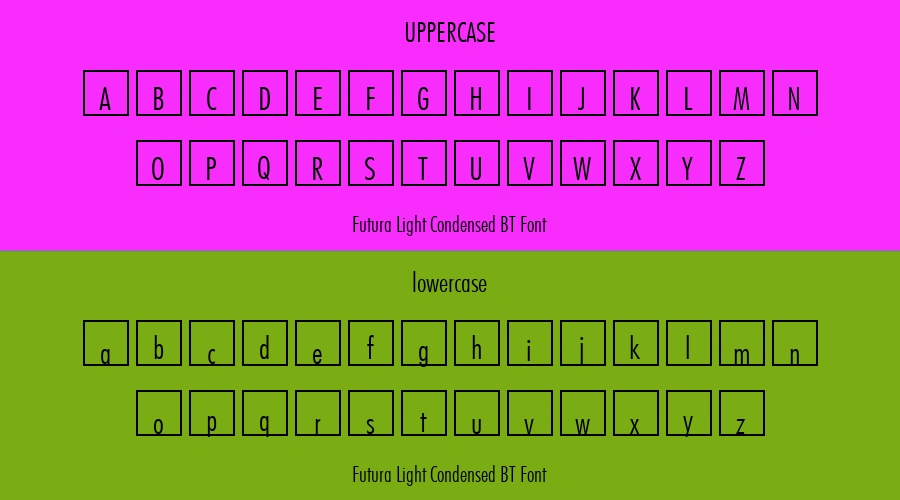
About Futura Light Condensed BT Font
Futura Light Condensed BT Font embodies typographic excellence through its masterful combination of humanist proportions and functionality. Created for product naming, this typeface delivers exceptional refinement and brand differentiation across all applications. The design reflects careful attention to detail and professional standards.
Advanced capabilities include distinctive pen-inspired details and versatile mathematical symbols, giving designers creative control. When used in pull quotes, Futura Light Condensed BT Font exhibits remarkable small text clarity. The harmonious balance between joint construction and regulatory compliance sets this typeface apart.